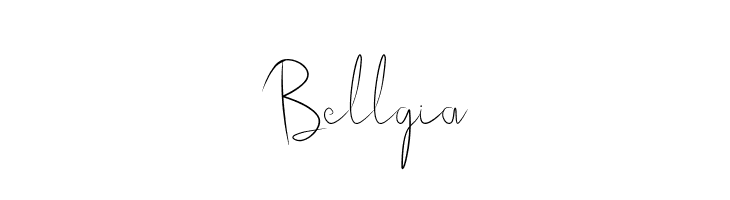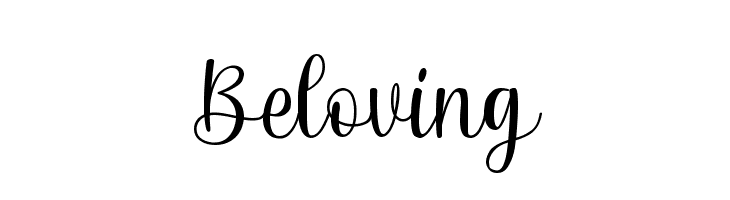
An elegant, flowing script font with modern, elongated characters.
A lively, handwritten font with fluid, flowing letterforms and a playful, casual appearance.
A playful, cursive font with bold, interconnected letters and a whimsical style.
A sophisticated script font with flowing, high-contrast strokes.
A modern, handwritten font with elegant, flowing characters.
A sophisticated script font with flowing, connected letters and a graceful appearance.
A bold, elegant script font with flowing, cursive letterforms.
A dynamic, expressive handwritten font with bold, fluid strokes.
A graceful, fluid handwritten font with elegant cursive strokes.
An elegant script font with flowing, cursive lines and a refined appearance.